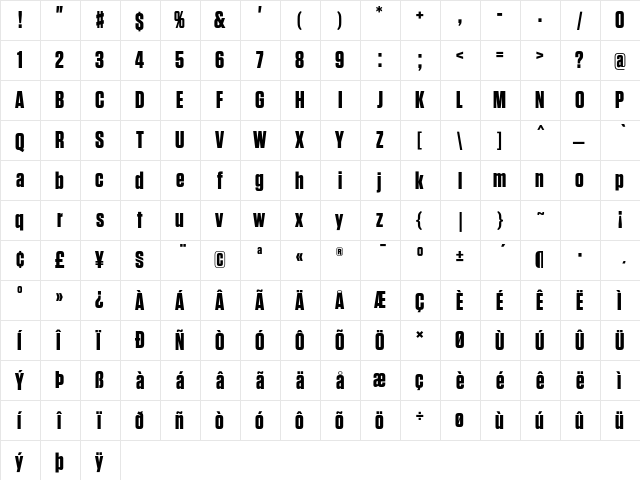
Tungsten Bold
| Foundry | Hoefler & Frere-Jones |
| Designer | Hoefler & Frere-Jones |
Design Context for Tungsten Typeface
Tungsten is a composed and adaptable typeface that performs quietly and consistently across a wide range of design contexts. Its bold stroke weight gives it real presence on the page.